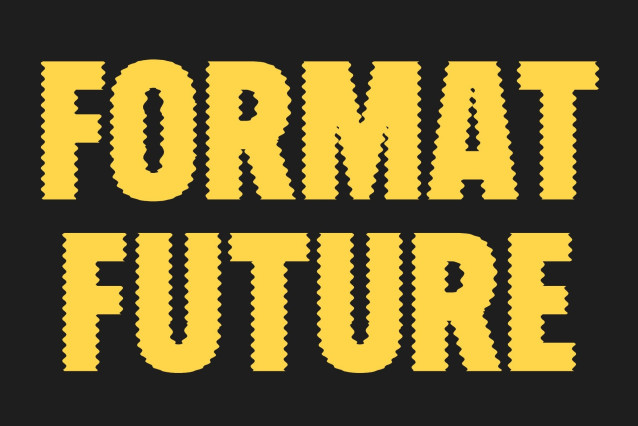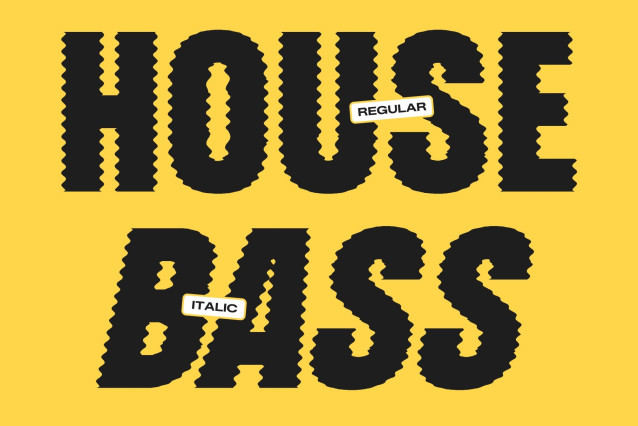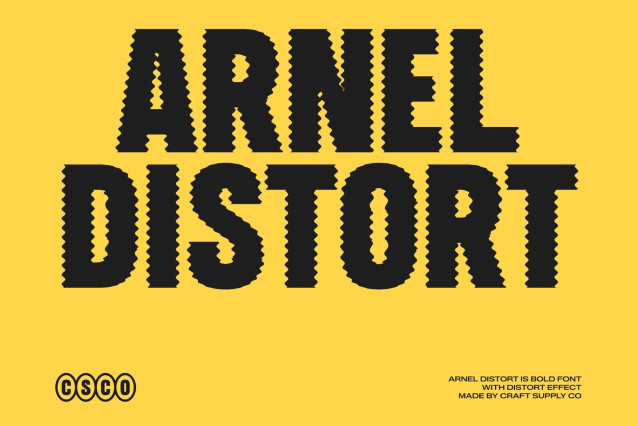
Arnel Distort Font
Arnel Distort – Bold Sans Serif Display Font: Where Powerful Strength Meets Fluid Distortion
Strong Masculine Forms with Commanding Presence
This is a bold sans serif display font designed to radiate masculinity, strength, and modern confidence. Its thick letterforms and solid contemporary structure create a commanding visual identity filled with power, clarity, and bold character. Every character feels impactful and assertive, making the font perfect for high-visibility display compositions and attention-grabbing creative projects.
Distort Effect with Dynamic Organic Motion
This font features fluid organic contours along the letter edges that create a subtle melting effect. This expressive detailing introduces movement, softness, and artistic visual depth while preserving the font’s bold and refined structure. The result is a dynamic and visually immersive appearance that feels modern, energetic, and creatively expressive.